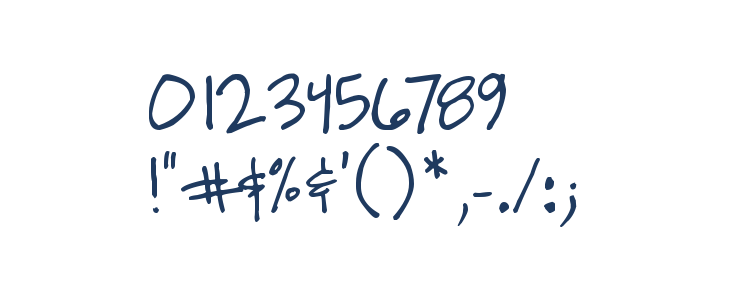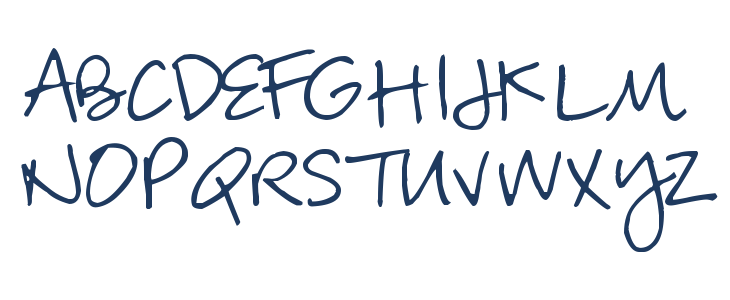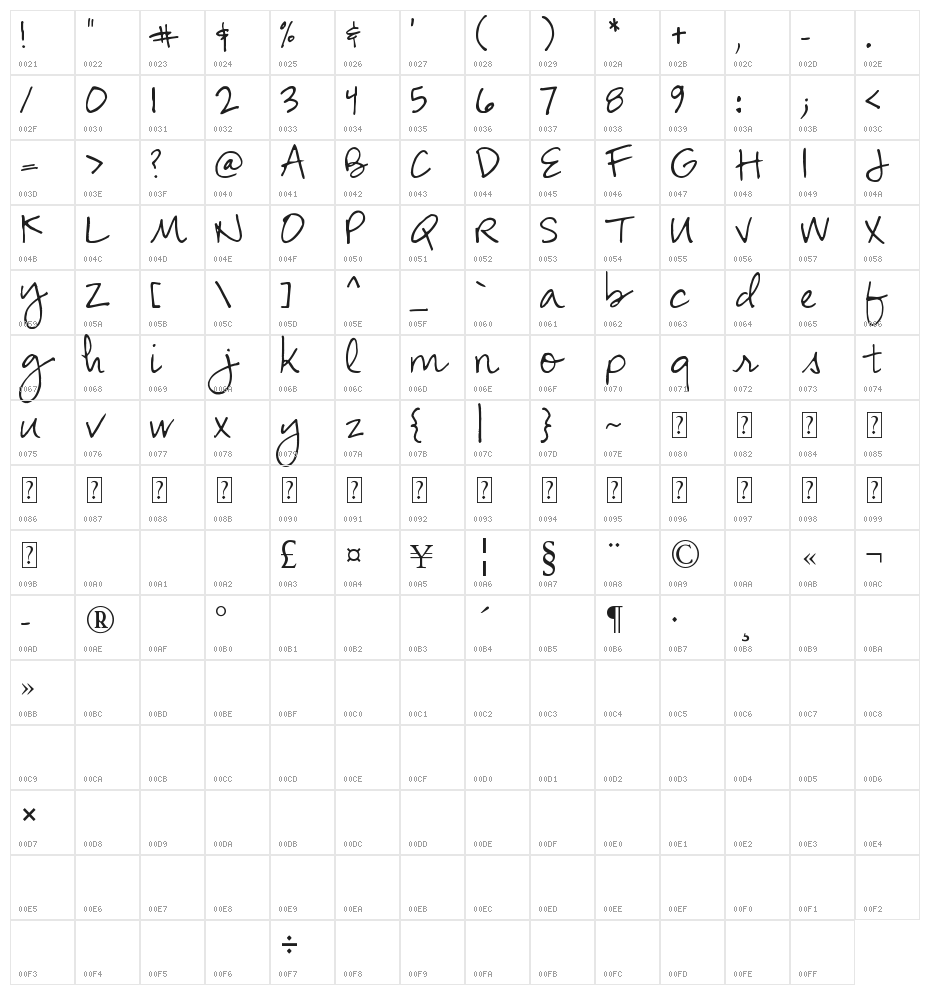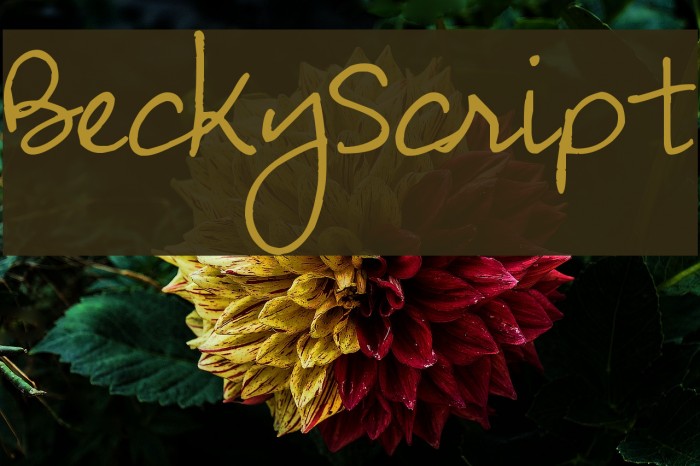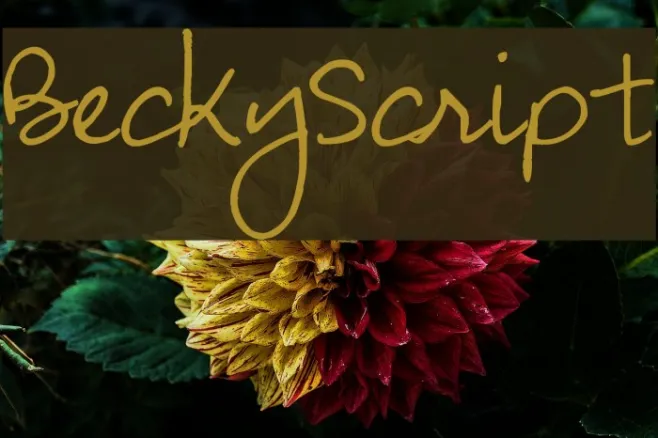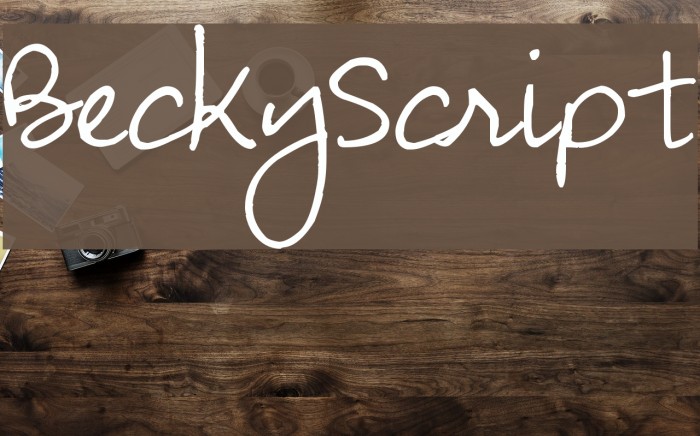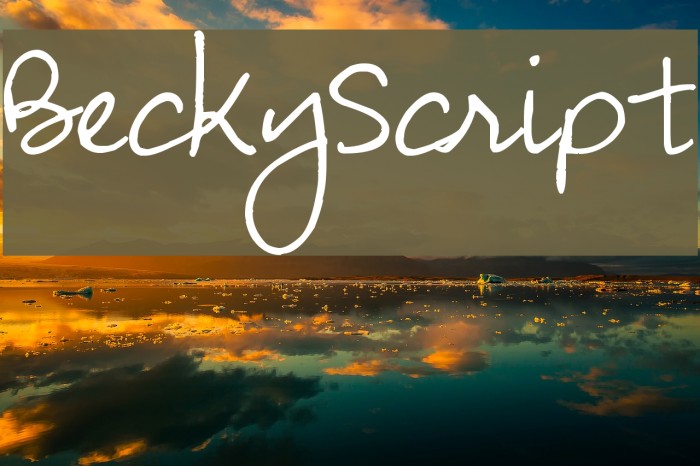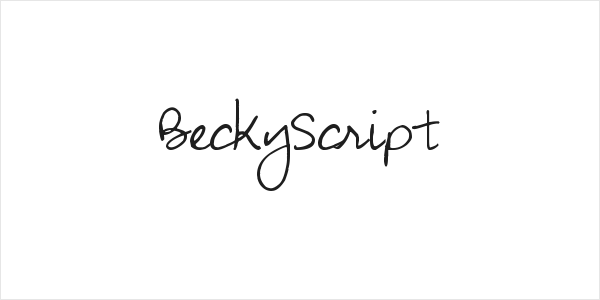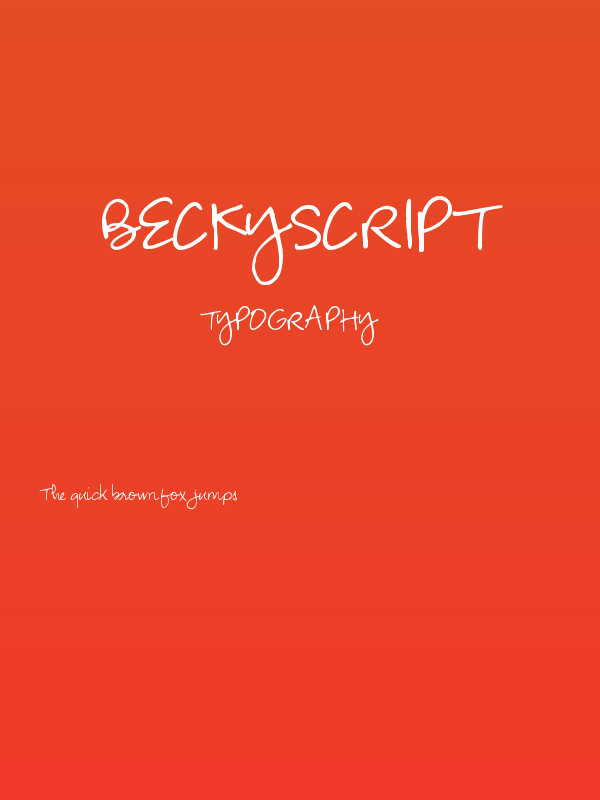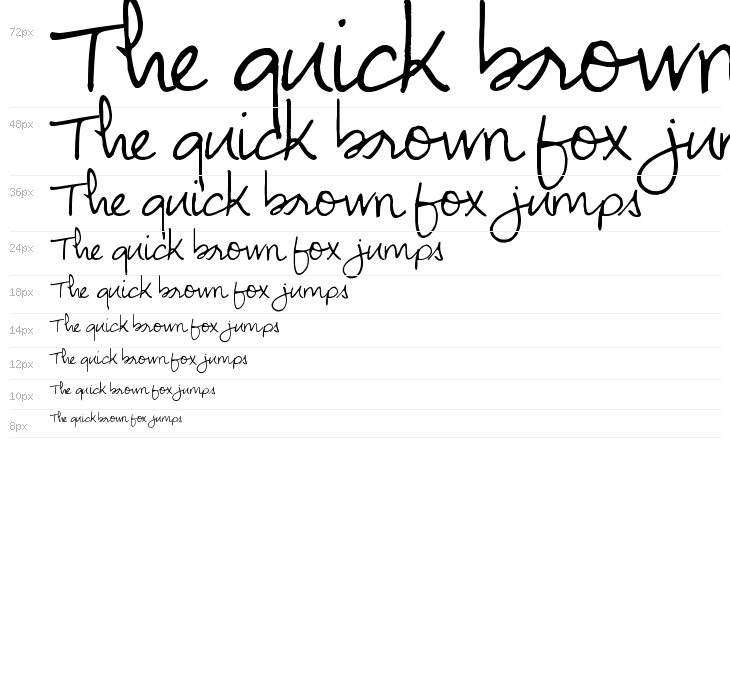
BeckyScript Font
BeckyScript Description
This font exudes a casual, handwritten style with a playful and informal appearance. The letters are crafted with a smooth, flowing script that mimics natural handwriting. Each character is slightly slanted, adding to the relaxed feel. The strokes are consistent in width, providing a uniform look across all letters. The uppercase letters are bold and prominent, while the lowercase letters maintain a more delicate and cursive form. The numbers and special characters follow the same handwritten aesthetic, ensuring a cohesive design throughout. This font is perfect for projects that require a personal touch or a creative flair.
| Use Case | Logos, Invitations, Social Media Graphics |
| Proposed Projects | Ideal for greeting cards, personal invitations, creative branding, and social media graphics. |